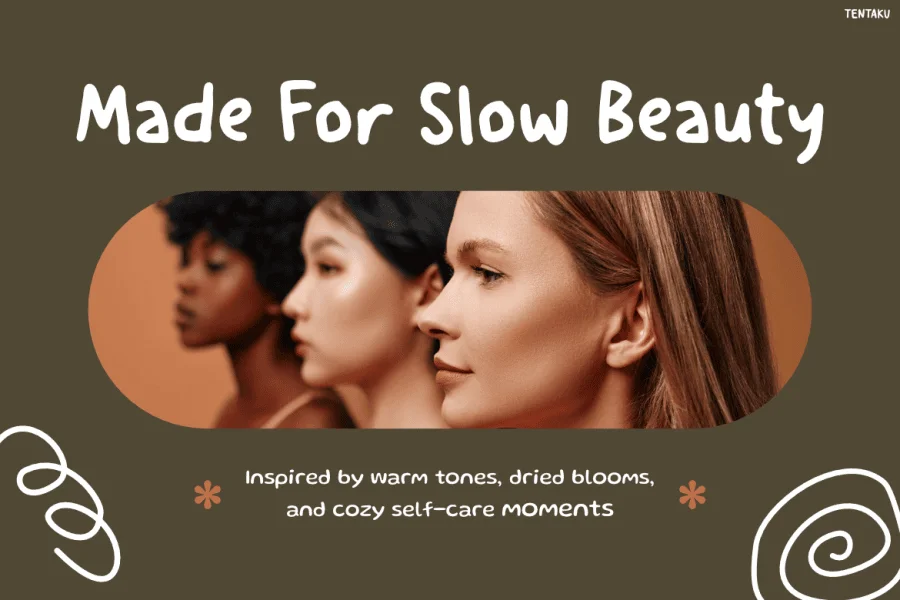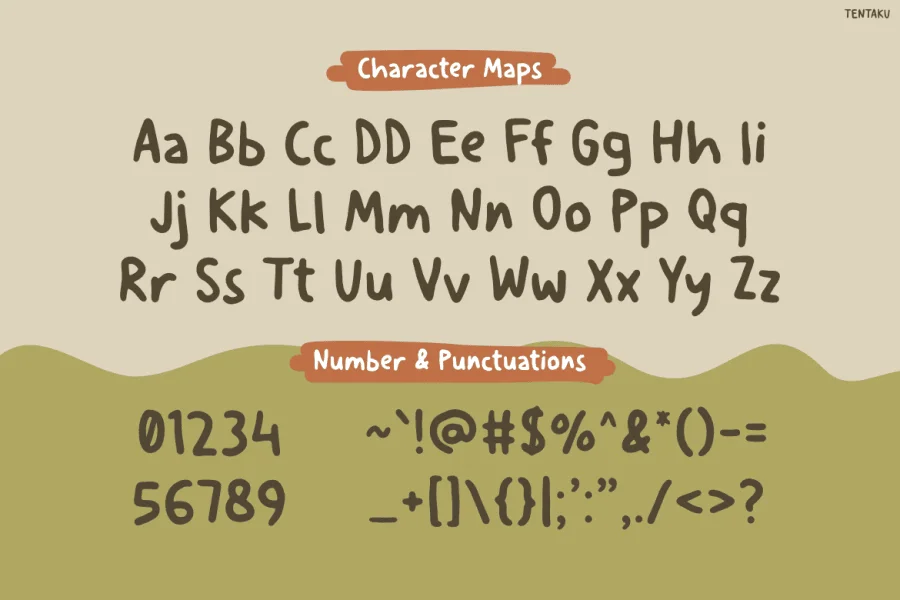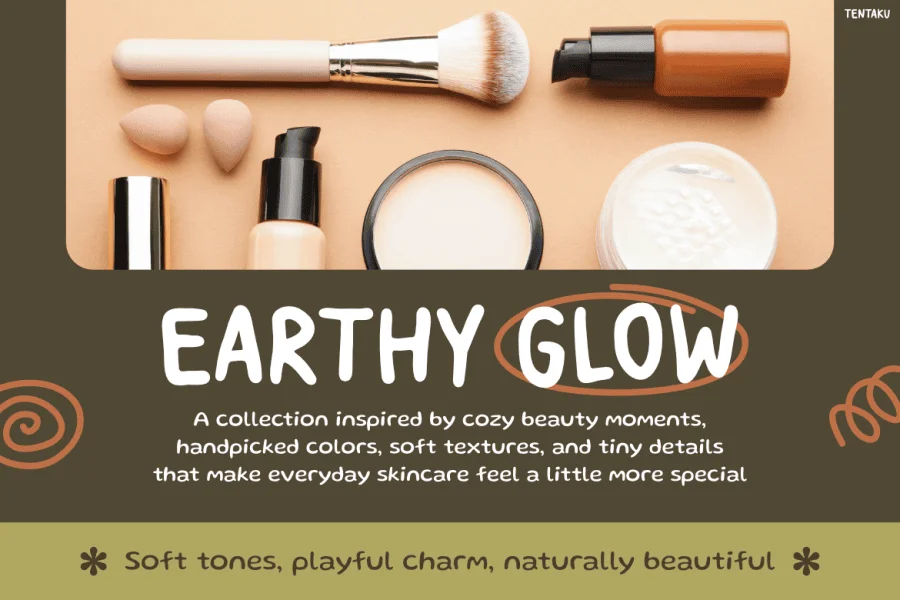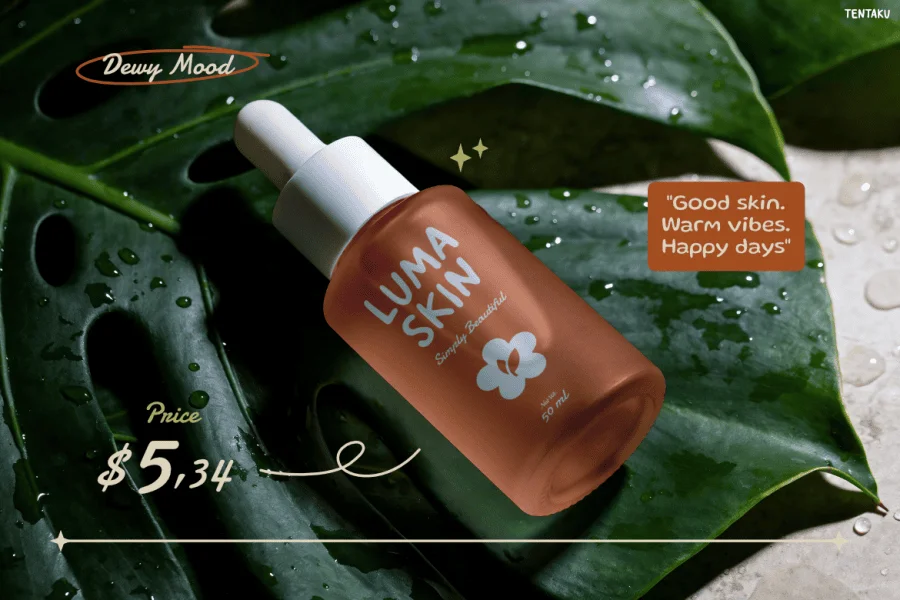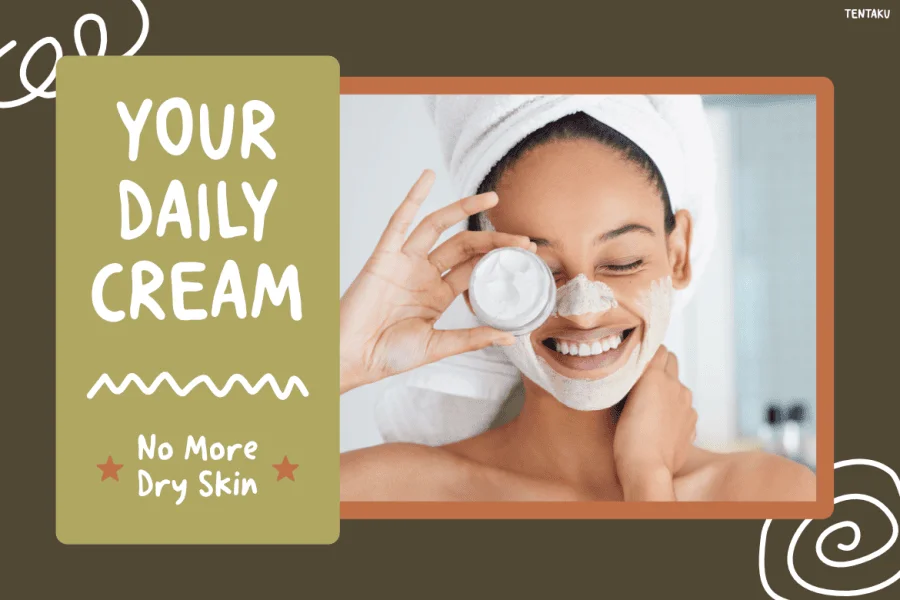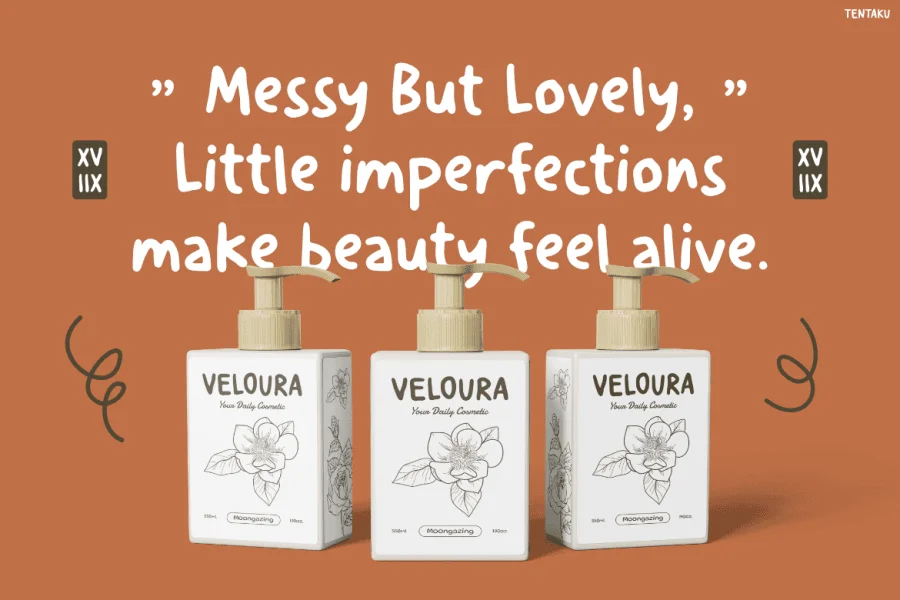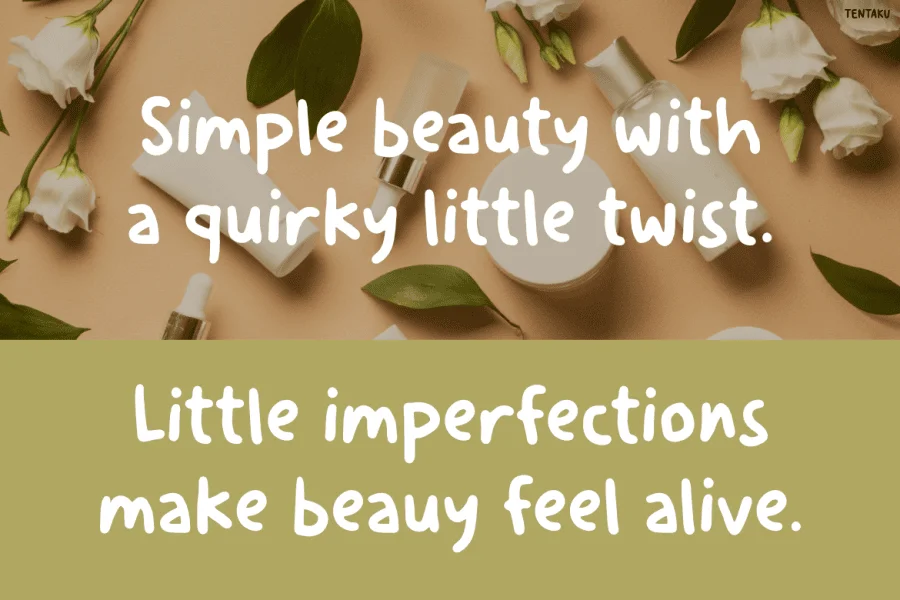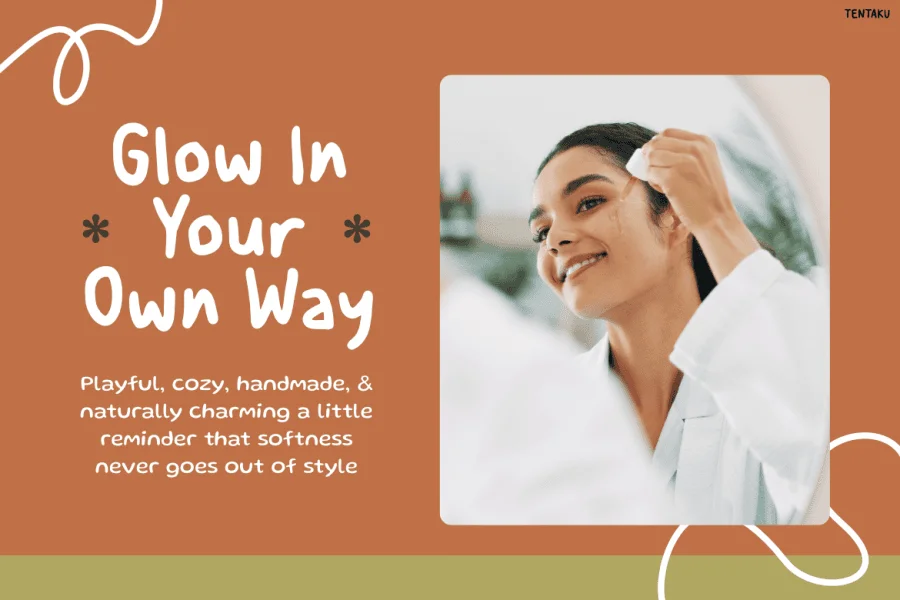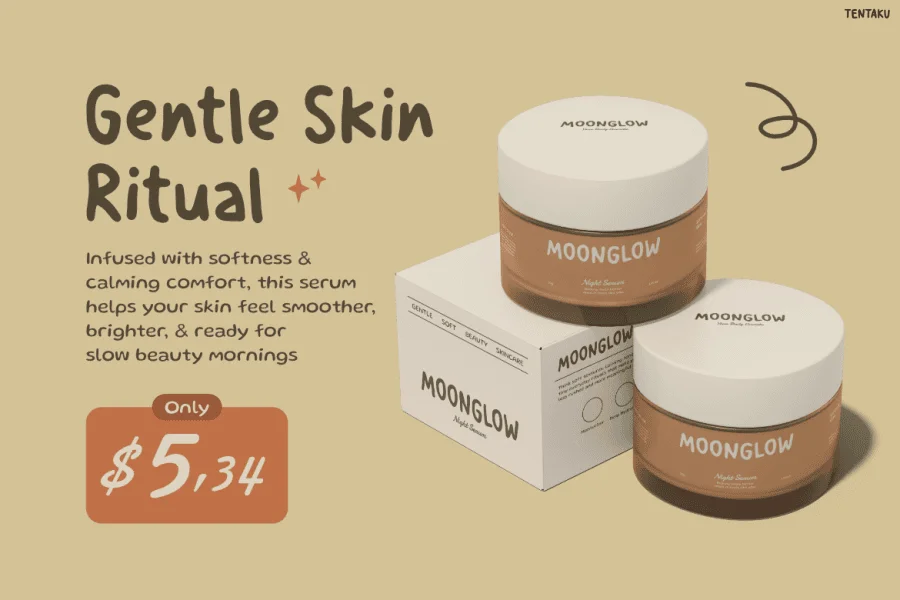
Tentaku is a warm, hand-drawn display sans-serif that embraces organic irregularity and a soft, tactile texture. Featuring a low-contrast, near monoline stroke weight, the typeface is characterized by its gently rounded terminals and slightly uneven, fluid baselines that mimic natural handwriting. Its letterforms are upright and friendly, with open counters and simplified structures that prioritize casual legibility while retaining a distinct, human touch.
With its cozy and approachable aesthetic, this typeface is exceptionally well-suited for lifestyle branding, organic cosmetics packaging, wellness editorial layouts, and artisanal product design. Its playful charm and soft, natural cadence make it an ideal choice for social media graphics, product labels, and promotional materials that seek to convey authenticity, warmth, and a relaxed, everyday elegance.